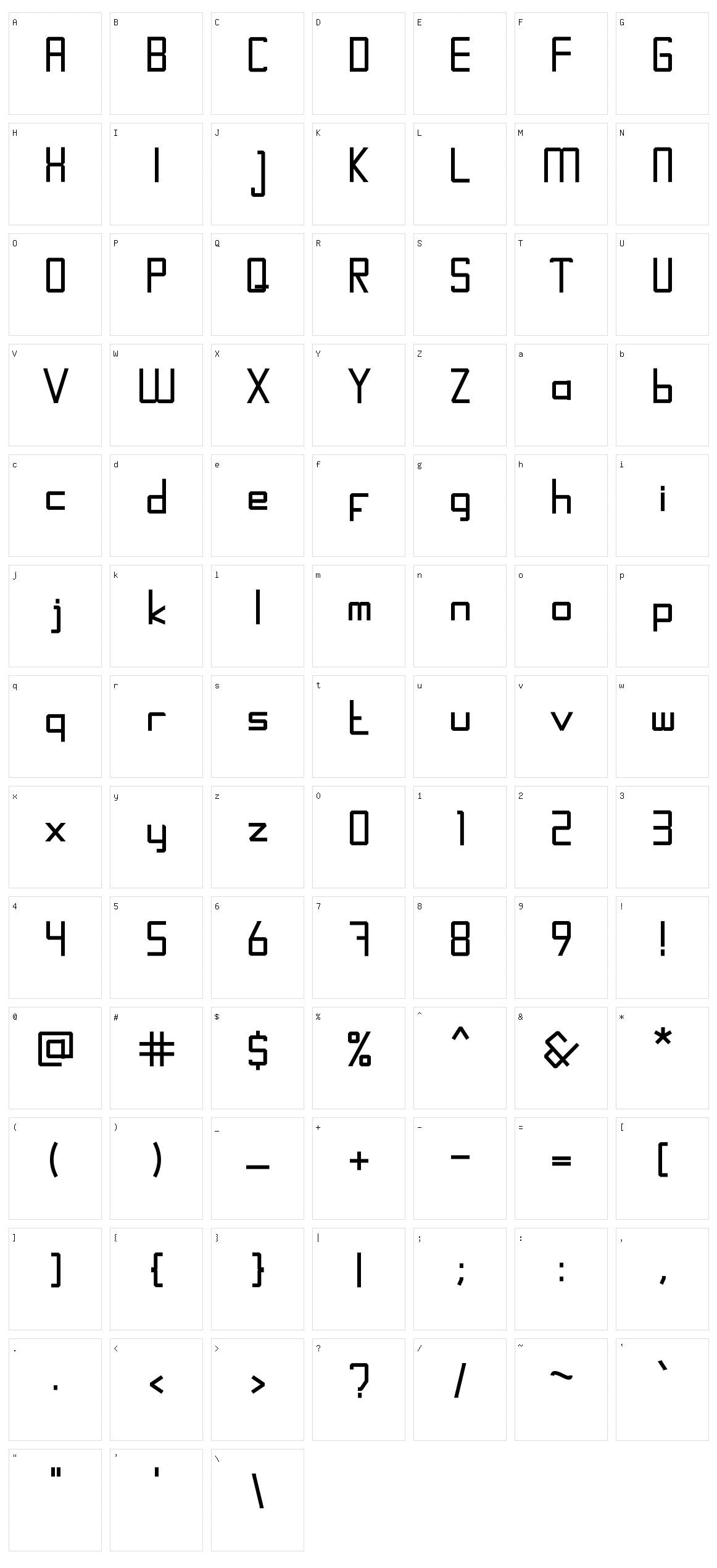
The free font Jaguar is carefully designed by Ishmael Studio, showcasing a thoughtful balance of creativity and usability and falls under the Square font style. When you download the ZIP file, it contains only 7.81 KB of font files, making it lightweight and quick to download. Please review the license details below to understand permitted usage and distribution rights. If license information is not available, we recommend using this font for personal projects only or contacting the author directly for commercial usage permissions.